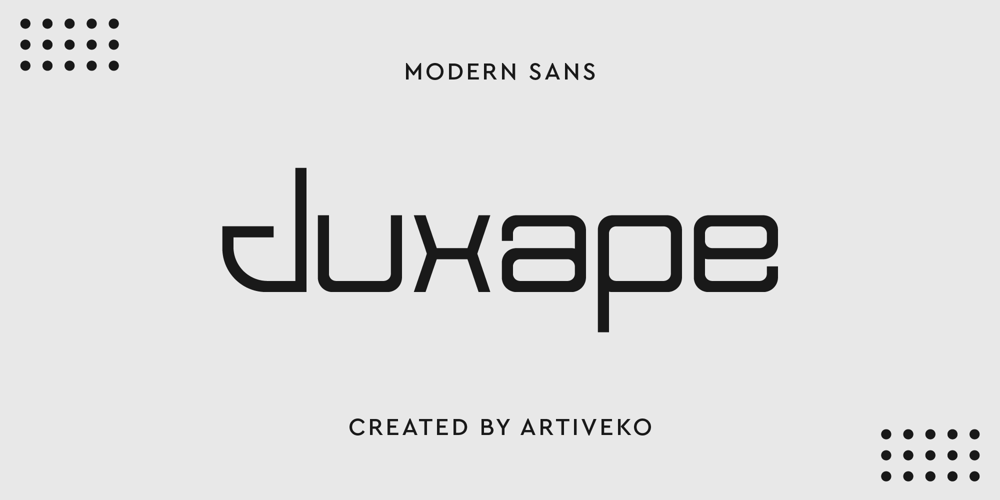
Juxape
Juxape font
Juxape Font Family was designed by Iwan Alwan and published by Artiveko. Juxape contains 2 styles and family package options. Juxape is a tech-inspired sans serif font crafted by Iwan Alwan. Known for its unique design, Juxape offers a striking blend of futuristic and minimalist aesthetics.This versatile typeface features distinct variations between uppercase and lowercase characters, enhancing its visual appeal. With comprehensive multilingual support, Juxape is perfect for global applications, ensuring your message is conveyed clearly and stylishly across different languages. Ideal for tech branding, UI design, and modern web projects, Juxape stands out as a bold and innovative font choice.